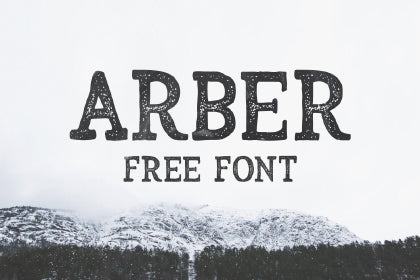
Free Arber Display Vintage Font
Featuring the dazzling free arber display vintage font. Download this font from the original source of Free Design Resources. Easily amaze your audience with this cool font and make your graphic designs pop up from the crowd.